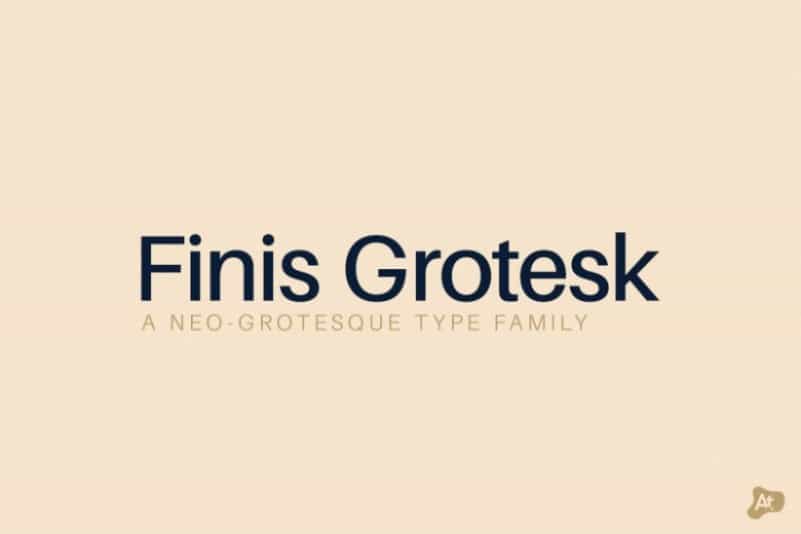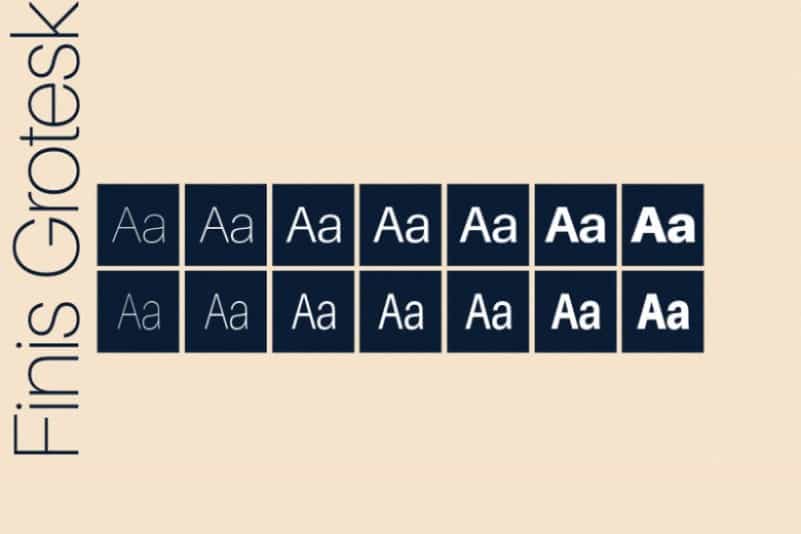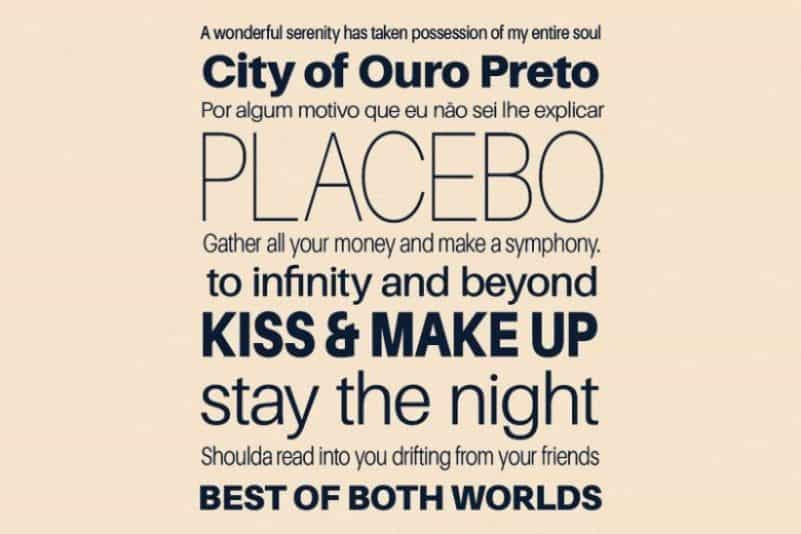
Finis Grotesk Sans is a sans font family by Alvo type that comes in elegant typeface. This is a modern typeface, based on geometric shapes, a contemporary sans typeface that aims at clarity and readability. It does have a little of that personality feel to it. It’s was inspired by Bauhaus movement and designed for headlines or texts, and demonstrates rather clear and unpretentious glyph design.